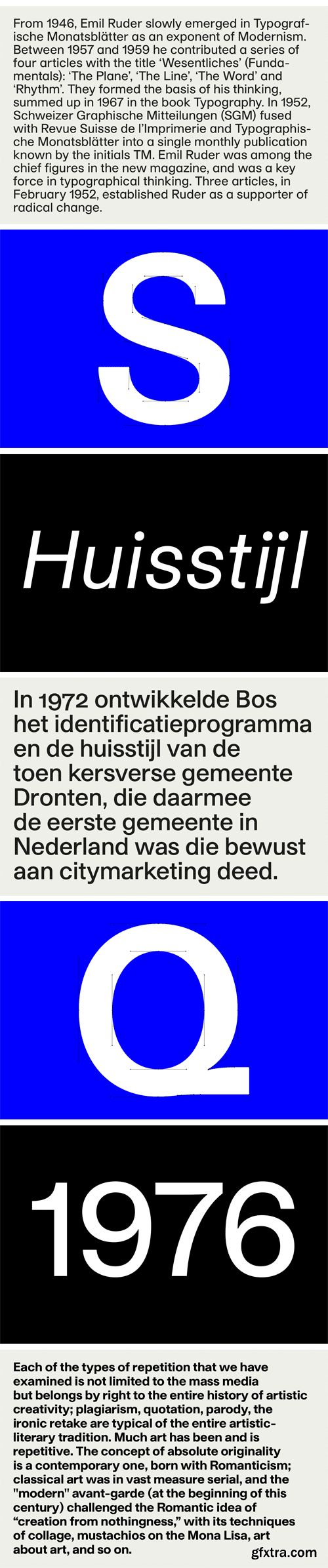
Studio Pro is a sans-serif font based on the research done during 60’s and 70’s by European type designers. They examined the two most important sans serif typefaces at that time with the aim to renew them and to work out a new proposal of forms with proper optical and rhythmical corrections.
A similar experiment was conducted by Umberto Fenocchio in Italy, with his major type design œuvre Linea for Italian type foundry Fonderia Tipografica Cooperativa (1966–1969). Not a revival, Studio Pro is conceived for modern tasks and to be visualized on modern devices: with a very standard, still elegant shape; plenty of alternatives and open type features studied to make possible to use, in a smart way, all the wide range of glyphs; a tall x-height, that makes it readable also when used at a very small size; finally, proportions that make it very neutral, still very recognizable and unique.